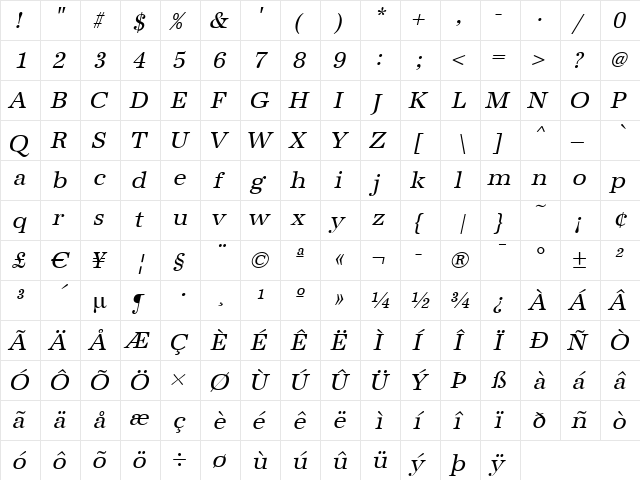
IrisBecker Italic Font Preview
IrisBecker Italic
IrisBecker Italic Font Details
Design Context for IrisBecker Typeface
IrisBecker takes a measured approach to typography — its balanced proportions and neutral character make it a reliable workhorse for both digital and print work. The dynamic lean of this cut emphasises speed and emphasis in any layout.